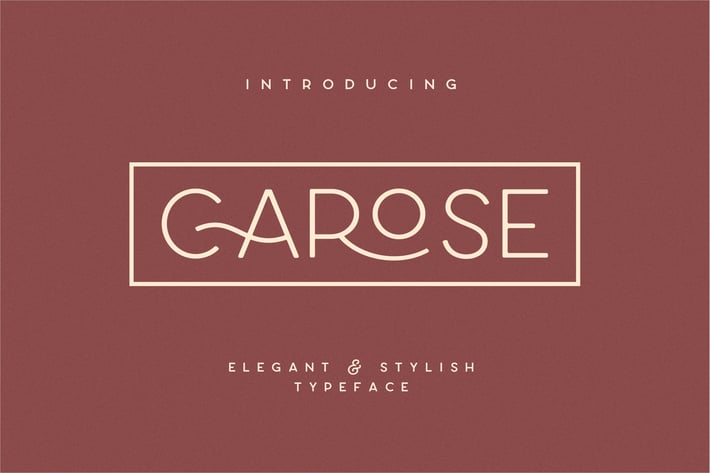
Carose Sans- 6 Elegant Typeface
Introducing Carose Sans - A Modern elegant luxurious sans serif with a ton of ligatures and alternate characters. Its clean and minimalistic and works wonderfully on its own for logos, headlines, posters, packaging and many more! And with six different weights to choose, your option to create more unique and versatile design is a lot wider. Have fun and create more.. Your Imagination only your limit!!
FEATURES:
+ 6 Weights font
+ All caps
+ Stylistic Alternates & Ligatures
+ Numerals & Punctuation
+ Accented characters
+ Multiple Languages Supported